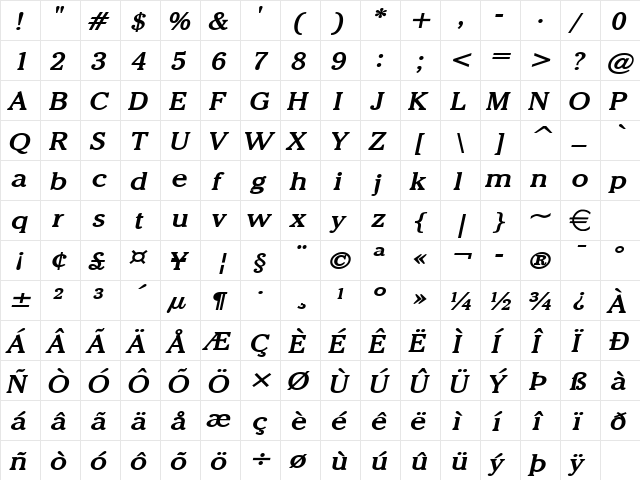
ChelseyWide BoldItalic Font Preview
Design Context for ChelseyWide Typeface
ChelseyWide takes a measured approach to typography — its balanced proportions and neutral character make it a reliable workhorse for both digital and print work. The slanted form adds forward momentum and visual energy. The heavy weight commands attention and anchors typographic hierarchies.
Pro Tip: Try ChelseyWide for annotation and caption copy alongside an upright companion — the contrast in angle creates a dynamic but ordered typographic system.